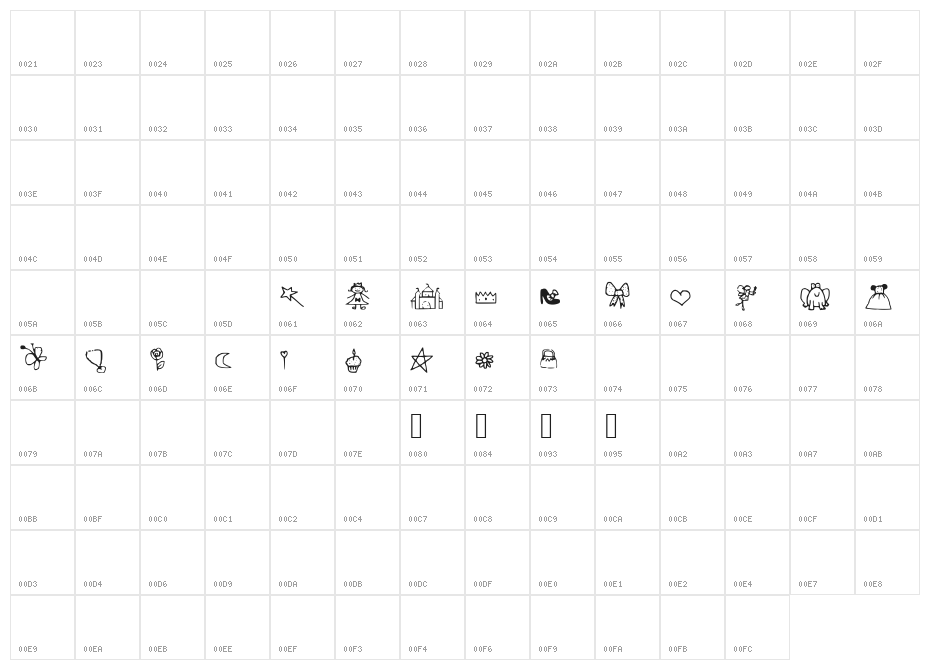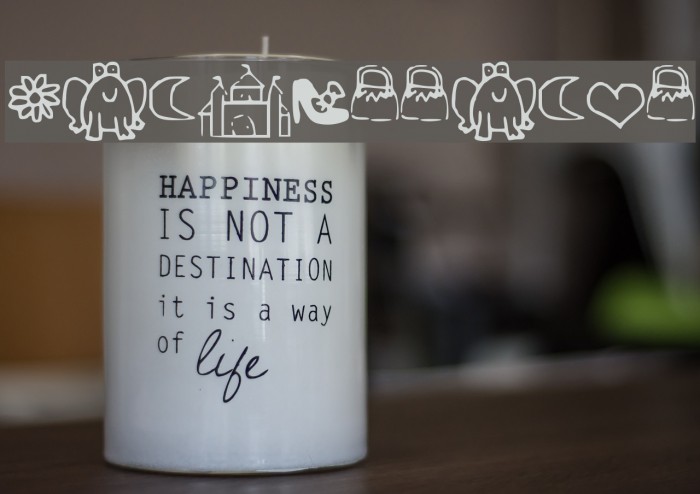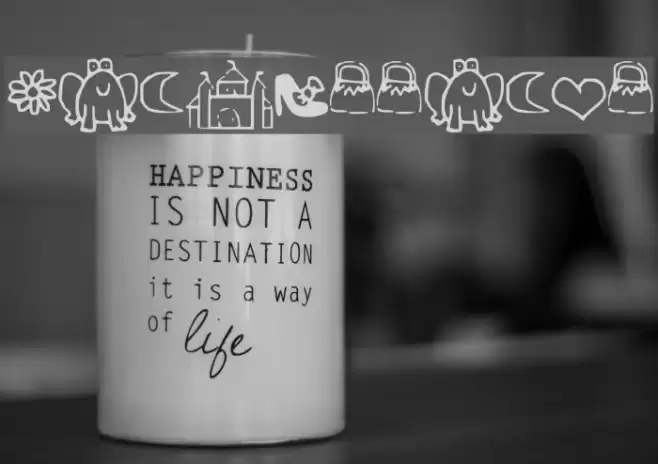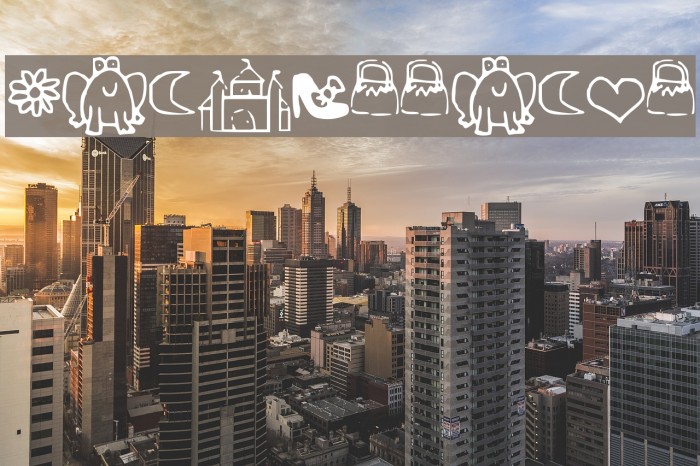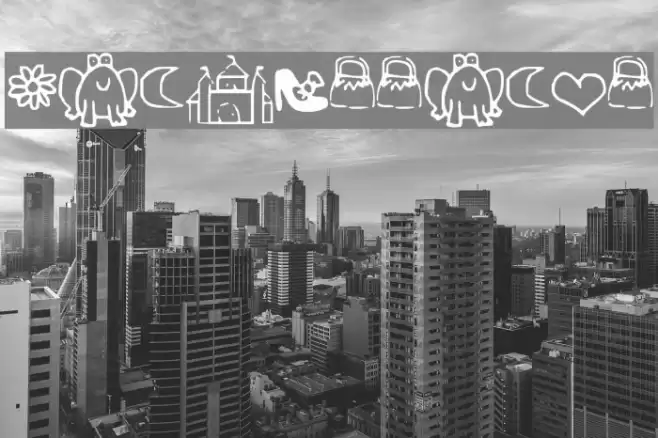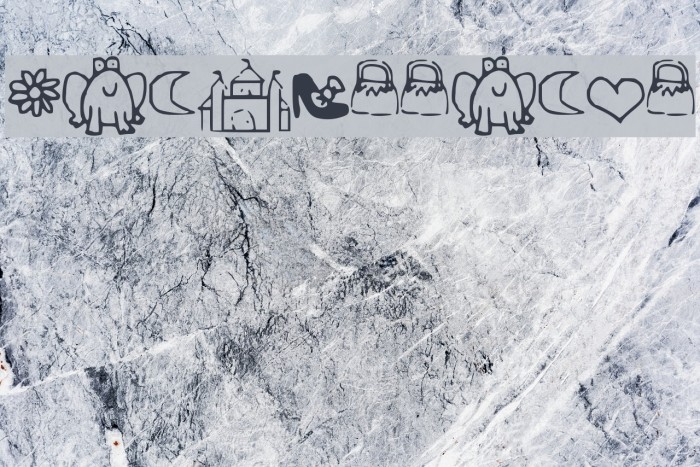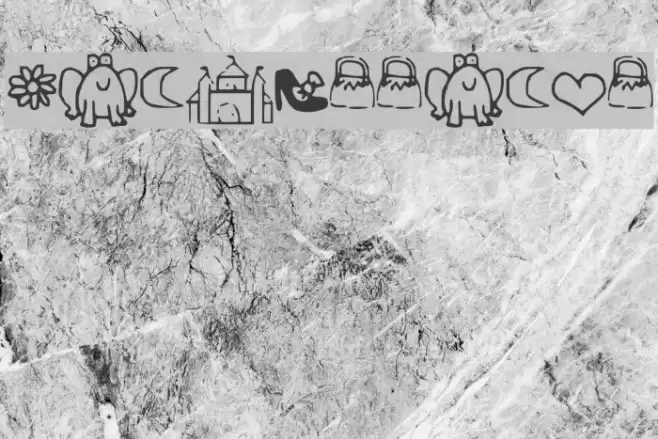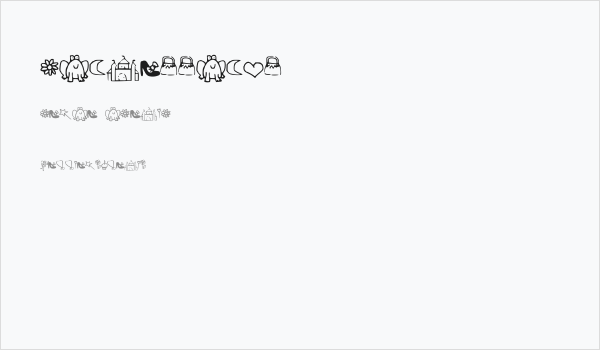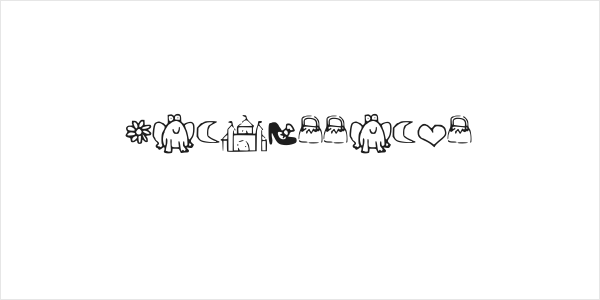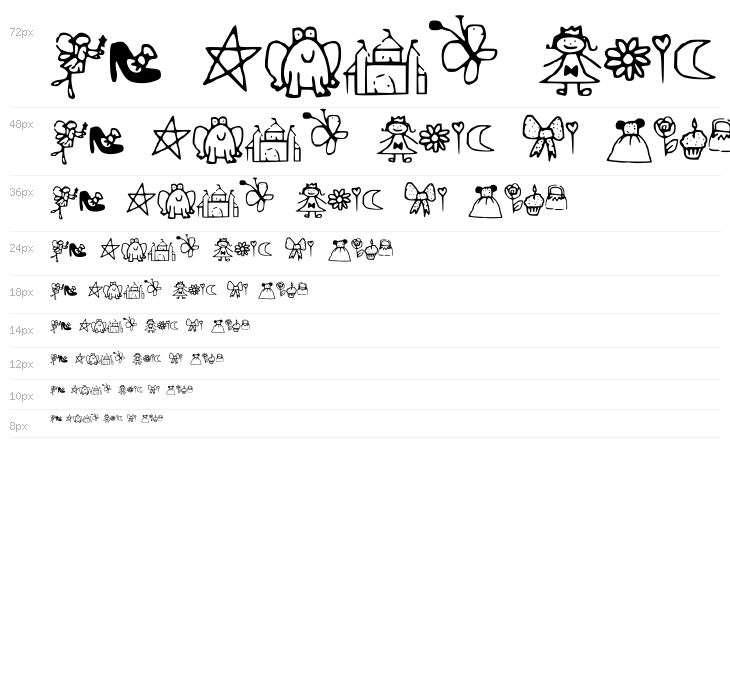
PrincessDings Font
PrincessDings Description
This whimsical and playful set of dingbats features a variety of charming and enchanting symbols, including stars, princesses, castles, crowns, shoes, bows, hearts, fairies, frogs, dresses, butterflies, and roses. The designs are hand-drawn with a casual and fun style, making them perfect for adding a touch of magic and fantasy to any project. The symbols are bold and clear, ensuring they stand out in any design. The collection also includes a crescent moon, a heart-topped wand, a cupcake, a large star, a flower, and a handbag, each rendered with the same delightful and imaginative flair.
| Overall Style | Whimsical |
| Use Case | Decorative elements, Invitations, Scrapbooking |
| Proposed Projects | Ideal for children's party invitations, fairy tale-themed scrapbooks, playful greeting cards, or whimsical branding projects. |